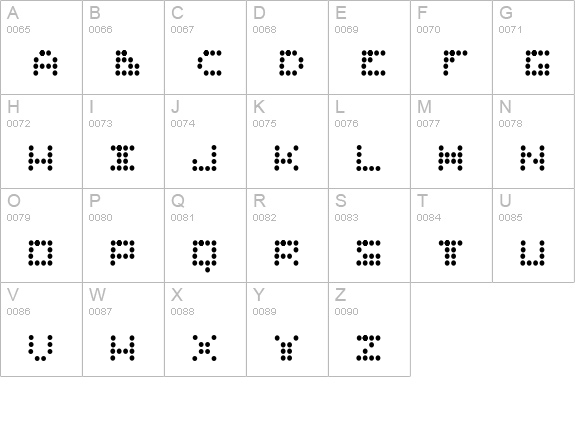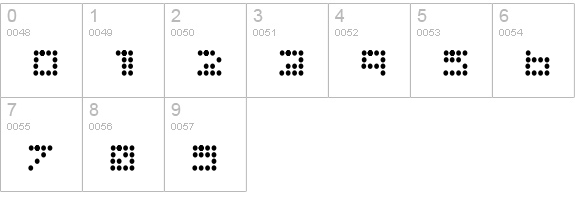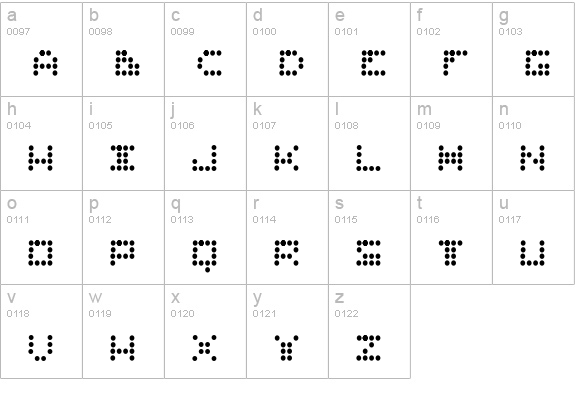
Routine Font Details
Introducing Routine font, a versatile and modern typeface designed to bring a touch of elegance to your projects. With its sleek lines and contemporary appeal, Routine font is the perfect choice for a wide range of design applications, from branding to editorial design. This font effortlessly combines sophistication with readability, making it ideal for both print and digital projects. What sets Routine font apart is its unique blend of classic and modern elements, creating a timeless aesthetic that is both stylish and sophisticated. Whether you're designing a logo, a website, or a brochure, Routine font will elevate your design and make a lasting impression on your audience. Best of all, Routine font is completely free to download at FontsMarket.com, making it accessible to designers of all skill levels. Don't miss out on this opportunity to add a touch of elegance to your next project with Routine font. Download it today and elevate your design to the next level!